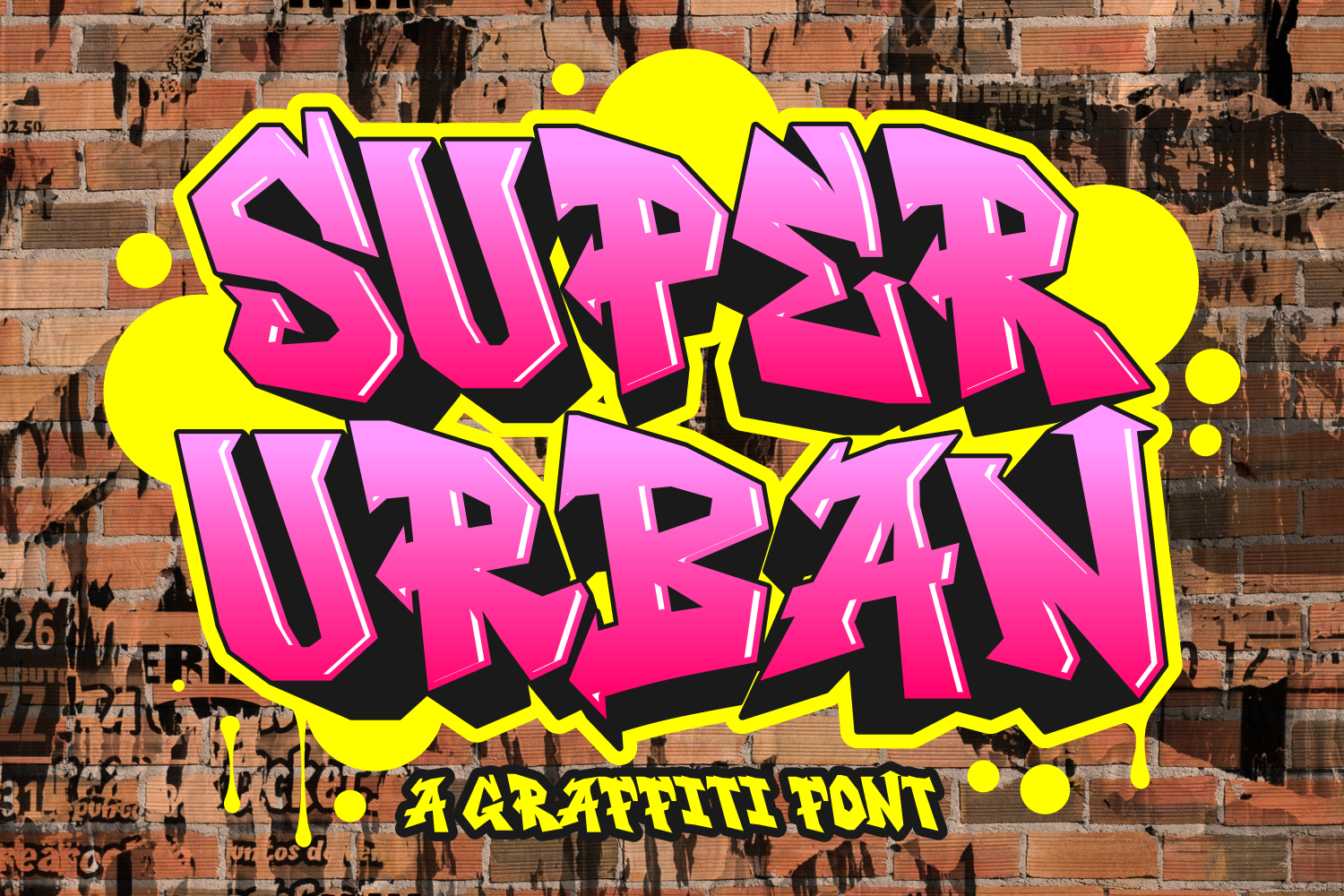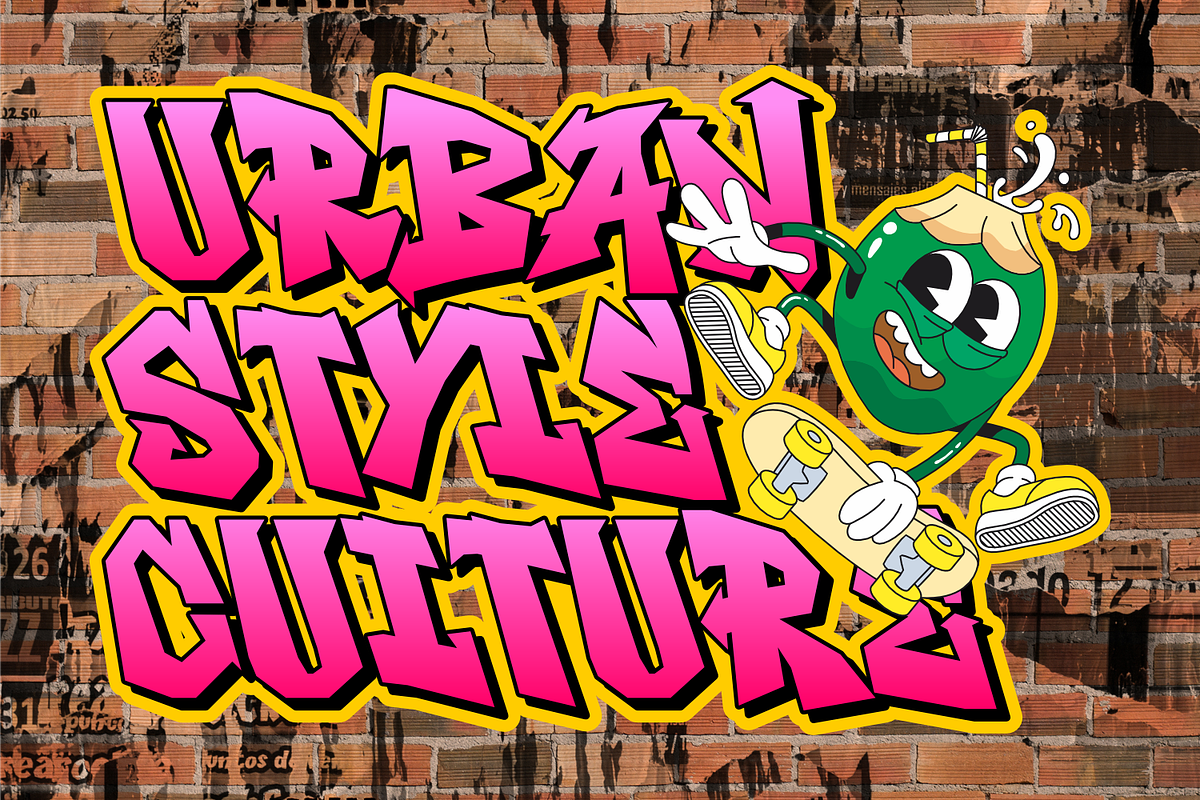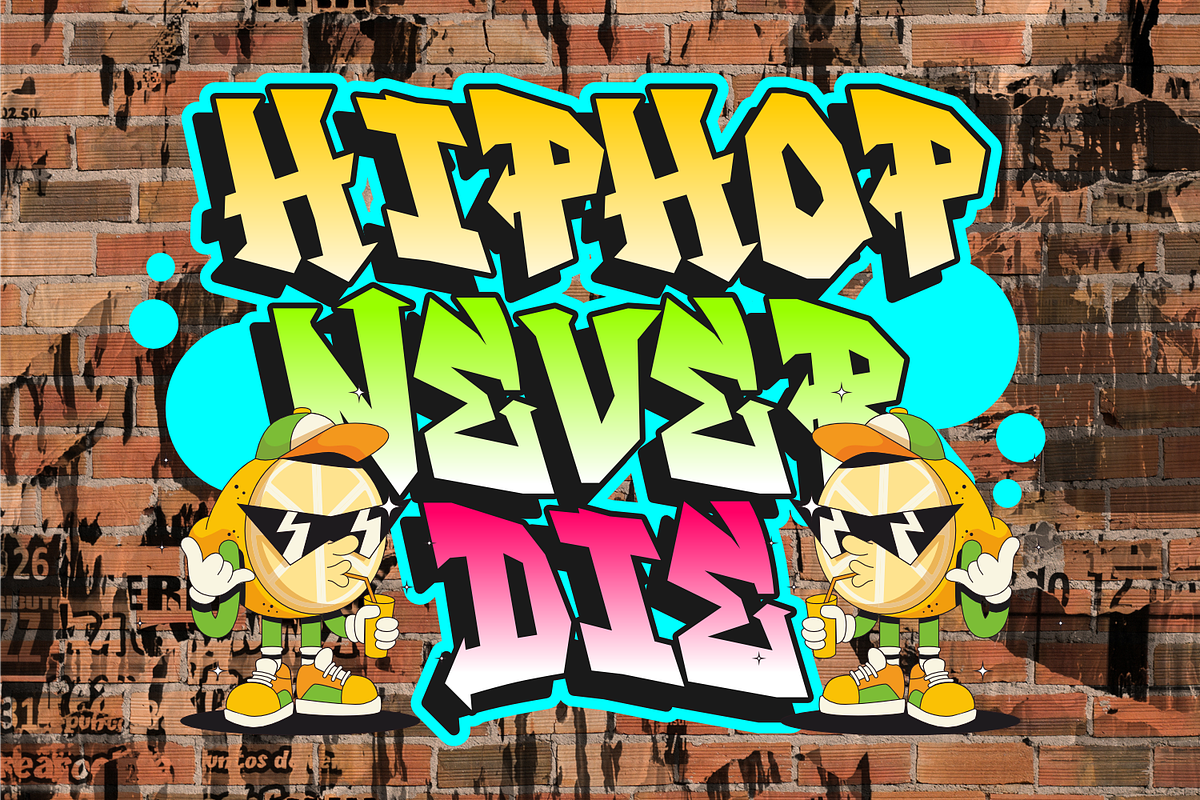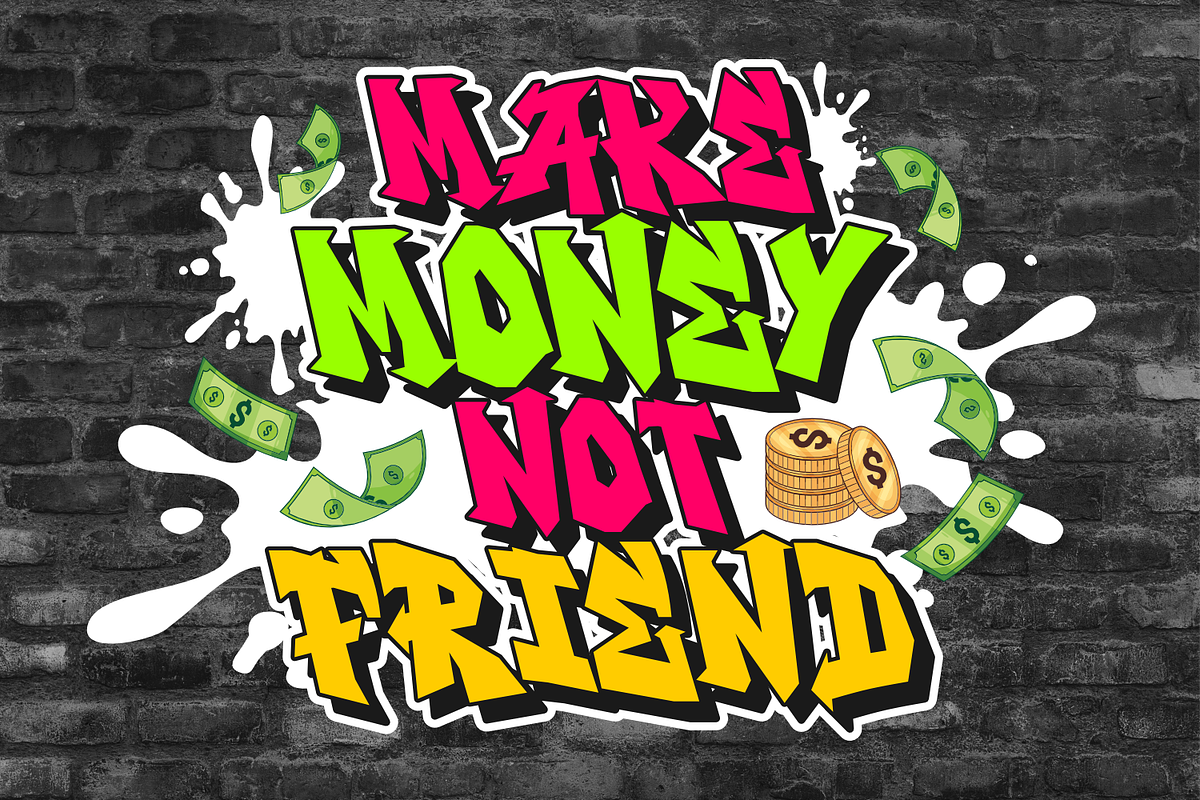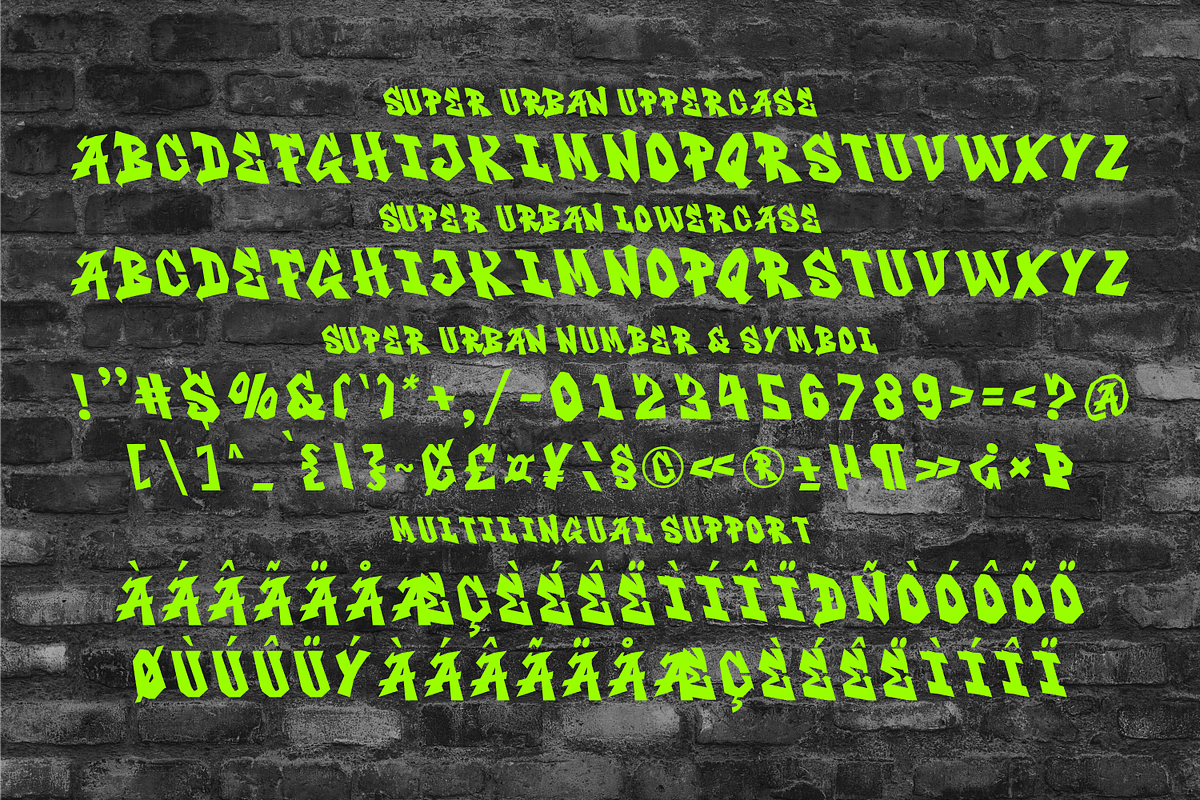
Super Urban - Modern Graffiti Font
Introduce an edgy addition to your unique creations with Super Urban – a dynamic, chic and urban-styled display font. Fueling the vibe of the city life and carved out of graffiti inspiration, Super Urban captures an innate sense of urban charm. Imbue your casual or urbanscape projects with this font, and witness how it adroitly elevates them. Experience the might of the metropolitan spirit with each alphabet telling a tale; welcome a new twist to your projects with Super Urban!
This dynamic font holds the crown in adding modern, stylish touch to any creative asset. Perfect for iconic logos, edgy branding designs, immersive magazines, trendy T-shirts, and catchy headlines or taglines. With Super Urban, make each word leave an impact.